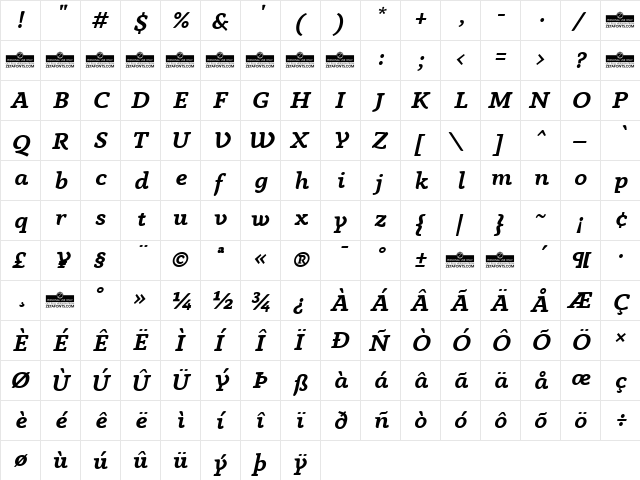
Anaphora Trial Bold Italic
| Foundry | Studio Kmzero |
| Designer | Francesco Canovaro |
Design Context for Anaphora Trial Typeface
Anaphora Trial is a composed and adaptable typeface that performs quietly and consistently across a wide range of design contexts. The slanted form adds forward momentum and visual energy. Its bold stroke weight gives it real presence on the page.
Pro Tip: Use Anaphora Trial for emphasis, pull quotes, and subheadings where its slanted energy can add rhythm to the layout.